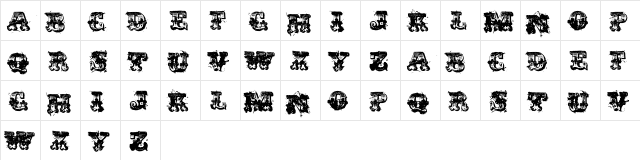
immoral Regular
Design Context for immoral Typeface
immoral is a composed and adaptable typeface that performs quietly and consistently across a wide range of design contexts.